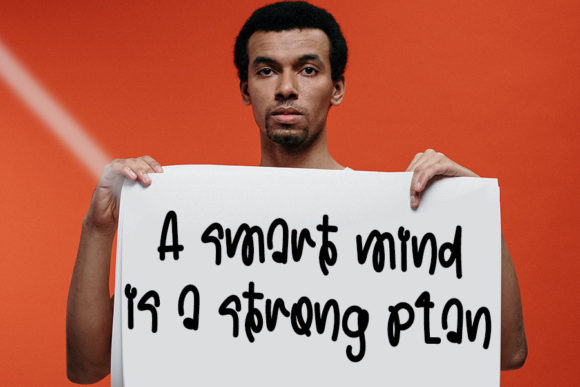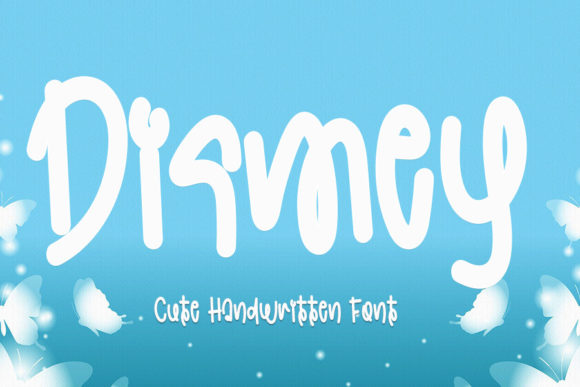
Dismey Font: The Quirky and Whimsical Handwritten Font You Need
Are you tired of using the same old fonts in your designs? Do you want to add a touch of personality and whimsy to your creations? Look no further than Dismey Font, a quirky and charming handwritten font that’s sure to elevate your font library.
The Charm of Dismey Font
Dismey Font is a one-of-a-kind, handwritten font that’s perfect for designers and crafters looking to add a dash of fun and personality to their work. Its quirky and whimsical style makes it an excellent choice for a wide range of projects, from playful posters and social media graphics to charming invitations and crafts.
What Makes Dismey Font So Special?
No matter the topic, Dismey Font is an incredible asset to your fonts’ library. Its unique and charming style has the potential to elevate any creation, making it perfect for:
- Playful designs: Dismey Font is perfect for creating playful posters, social media graphics, and other fun designs that need a dash of personality.
- Crafts: Add a touch of whimsy to your crafts, such as handmade cards, gift tags, and other DIY projects.
- Invitations: Make your invitations stand out with Dismey Font’s charming and unique style.
- Branding: Use Dismey Font to add a touch of personality to your brand’s designs, such as logos, business cards, and letterheads.
Key Features of Dismey Font
Dismey Font has several key features that make it a must-have for designers and crafters:
- Handwritten style: Dismey Font has a charming, handwritten style that’s perfect for adding a personal touch to your designs.
- Quirky and whimsical: The font’s quirky and whimsical style makes it perfect for playful designs and crafts.
- Unique character set: Dismey Font has a unique character set that includes a range of letters, numbers, and punctuation marks.
Tips for Using Dismey Font
Here are some tips for using Dismey Font in your designs:
- Pair with other fonts: Pair Dismey Font with other fonts to create a unique and interesting contrast.
- Use for headings: Use Dismey Font for headings and titles to add a touch of personality to your designs.
- Keep it simple: Don’t be afraid to keep it simple and use Dismey Font on its own for a bold and eye-catching design.
Dismey Font is a quirky and whimsical handwritten font that’s perfect for designers and crafters looking to add a dash of fun and personality to their work. Its unique and charming style makes it an excellent choice for a wide range of projects, from playful posters and social media graphics to charming invitations and crafts. With its easy-to-use design and range of features, Dismey Font is a must-have for anyone looking to elevate their font library.
Here are some frequently asked questions about Dismey Font:
- What type of font is Dismey Font?
Dismey Font is a handwritten font with a quirky and whimsical style.
- Is Dismey Font easy to read?
Yes, Dismey Font is easy to read, making it perfect for designs where readability is important.